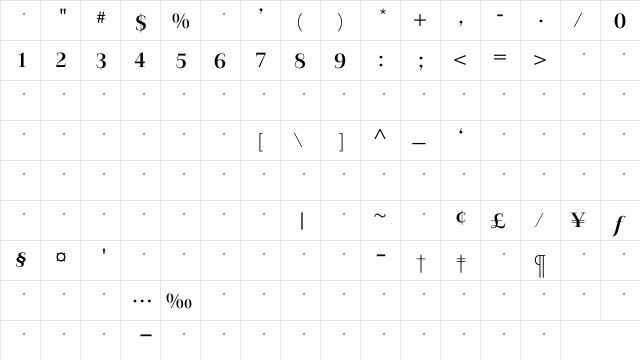
JardineBoldTab Regular
Design Context for JardineBoldTab Typeface
JardineBoldTab takes a measured approach to typography — its balanced proportions and neutral character make it a reliable workhorse for both digital and print work. Its bold stroke weight gives it real presence on the page.
Pro Tip: Use JardineBoldTab in both headline and body roles to test its range before committing to a single application.